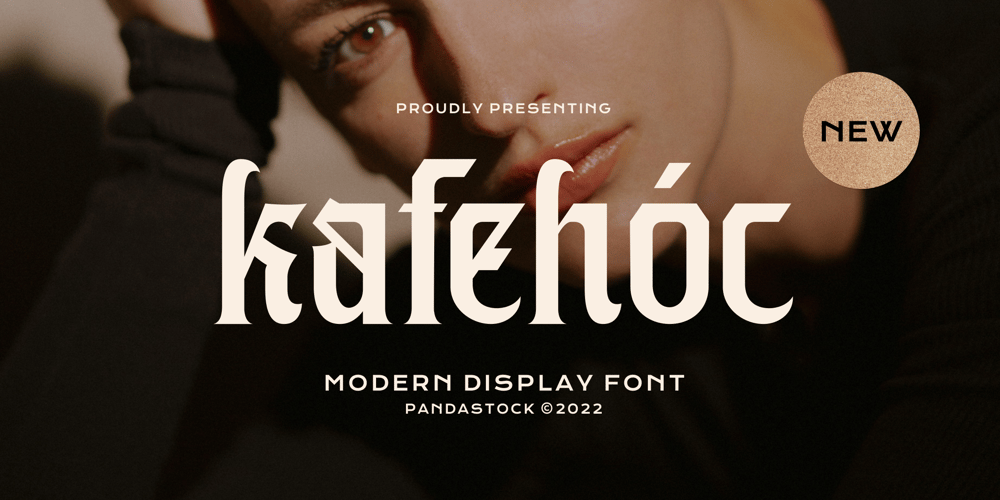
Kafehoc
Kafehoc font
Kafehoc Font Family was designed by Aulia Savira Putri and published by Imoodev. Kafehoc contains 1 styles and family package options. Kafehoc is a modern font with visual elegance, smooth curves, and beautiful ligatures. Its clear design makes your work look true and attractive. A very versatile font that works in both large and small sizes. This font is suitable for a wide variety of projects such as invitations, logos, branding, magazine, photography, card, product packaging, mugs, quotes, posters, labels, signatures, and more.Kafehoc is perfect for all business sectors including personal projects, studio, corporate, creative agency, industrial, company, etc.